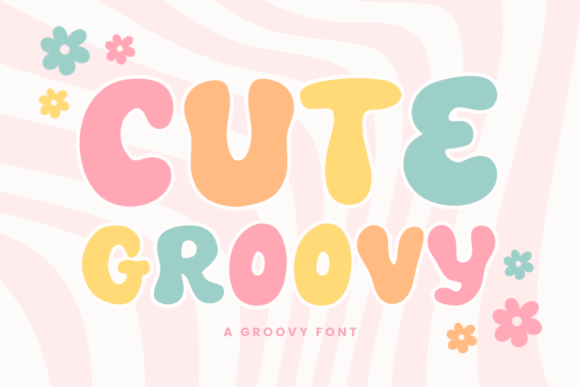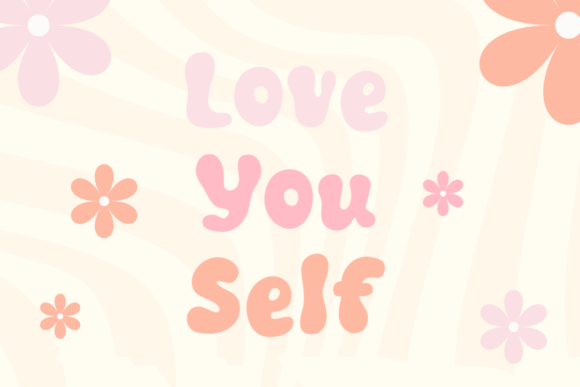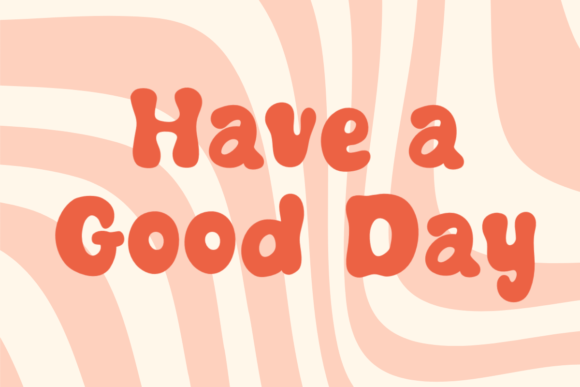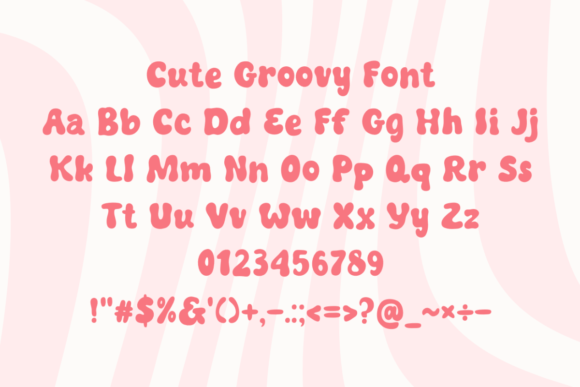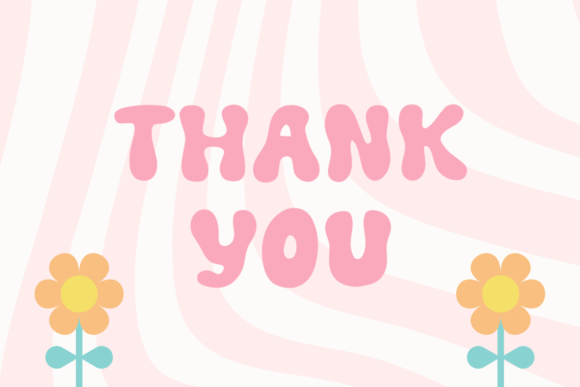
Cute Groovy Font: The Ultimate Typeface for Delightful Designs
In the world of typography, a font can make all the difference in creating a lasting impression. If you’re a designer or crafter looking for a typeface that combines cuteness and groovy vibes, look no further than Cute Groovy Font. This delightful font is designed to effortlessly infuse your creations with an irresistible charm that captures attention and spreads positive vibes.
The Essence of Cute Groovy Font
Cute Groovy Font is a playful and captivating typeface that is sure to bring a smile to anyone’s face. Its unique design combines the innocence and charm of cuteness with the fun and carefree spirit of groovy vibes. The result is a font that is both visually appealing and highly versatile, making it perfect for a wide range of design projects.
One of the standout features of Cute Groovy Font is its versatility. Whether you’re working on a branding project, creating eye-catching headlines, designing invitations, crafting posters, or developing social media graphics, this font is sure to work wonders. Its playful and charming nature makes it an excellent choice for any design project that requires a touch of whimsy and fun.
Cute Groovy Font is a dream come true for designers and crafters who want to add a personal touch to their creations. With this font, you can easily create designs that are both visually appealing and engaging. Whether you’re a professional designer or a DIY crafter, Cute Groovy Font is an excellent addition to your toolkit.
Use Cases for Cute Groovy Font
So, how can you use Cute Groovy Font in your designs? Here are a few ideas to get you started:
- Branding: Use Cute Groovy Font to create a memorable brand identity that stands out from the crowd.
- Headlines: Add a touch of whimsy to your headlines with Cute Groovy Font, making them impossible to ignore.
- Invitations: Create playful and charming invitations for parties, events, or special occasions.
- Posters: Design eye-catching posters that showcase your message in a fun and engaging way.
- Social Media Graphics: Use Cute Groovy Font to create social media graphics that are sure to grab attention and spark engagement.
Why Choose Cute Groovy Font?
With so many fonts available, why choose Cute Groovy Font? Here are just a few reasons why this font stands out:
- Unique Design: Cute Groovy Font boasts a unique design that combines cuteness and groovy vibes, making it a standout in the world of typography.
- Versatility: This font is incredibly versatile, making it suitable for a wide range of design projects.
- Easy to Use: Cute Groovy Font is easy to use and pairs well with a variety of other fonts, making it simple to incorporate into your designs.
- Fun and Engaging: This font is sure to add a touch of fun and whimsy to your designs, making them more engaging and memorable.
| Font Name | Cute Groovy Font |
| Author | The Magic Bee Studio |
In conclusion, Cute Groovy Font is a delightful and playful typeface that is sure to bring a touch of whimsy and fun to your designs. With its unique design, versatility, and ease of use, this font is perfect for designers and crafters who want to create visually appealing and engaging designs. Whether you’re working on a branding project, creating headlines, designing invitations, or crafting social media graphics, Cute Groovy Font is an excellent choice. So why wait? Give Cute Groovy Font a try today and see the difference it can make in your designs!